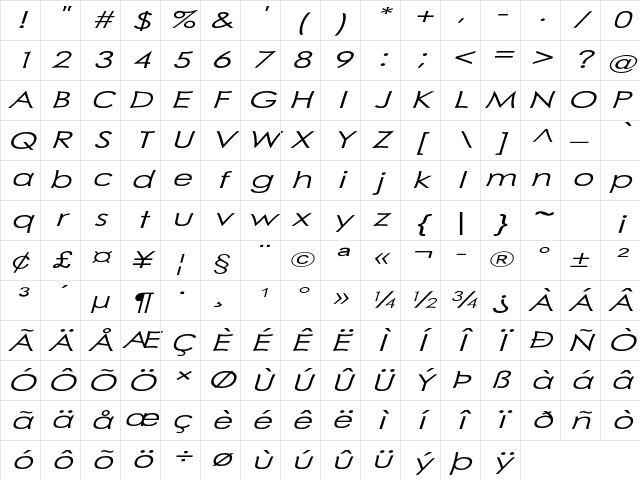
Voltagio Extra-expanded Italic
Style: Extra-expanded Italic
Design Context for Voltagio
Voltagio is a composed and adaptable typeface that performs quietly and consistently across a wide range of design contexts. The slanted form adds forward momentum and visual energy.
Pro Tip: Use Voltagio for emphasis, pull quotes, and subheadings where its slanted energy can add rhythm to the layout.